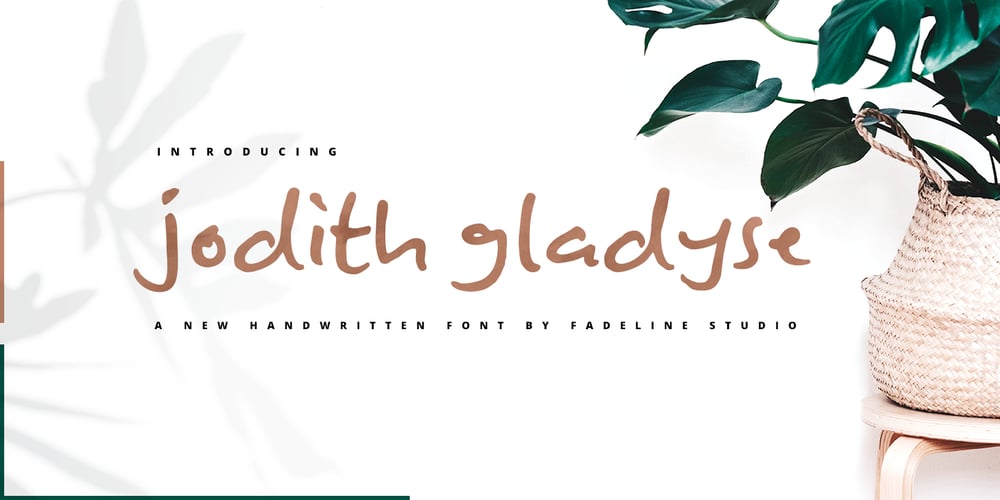
Jodith Gladyse Font Family was designed by Juni Fadil Putra and published by FadeLine Studio. Jodith Gladyse contains 1 styles and family package options. Introduce Jodith gladyse!Jodith gladyse a new handwritten font with a style natural, sweet and simple. Made with great care to provide the natural and modern elements. The great thing about this font is you can find some style when you use it, examples such as natural handwriting style, unique, simple, elegant, and luxury. Very suitable to meet your various design needs that are trending now. Please try it!